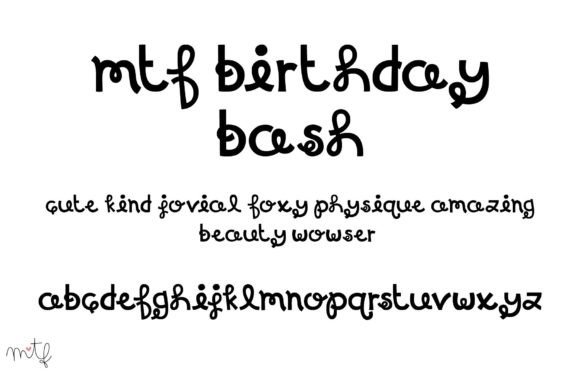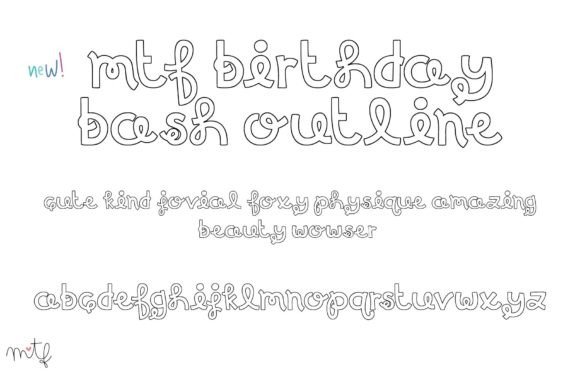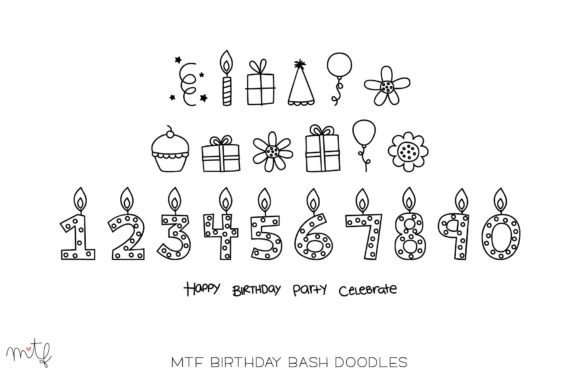
Birthday Bash Duo Font
About Birthday Bash Duo Font
**Birthday Bash** is not just a font; it’s a celebration in itself! This swirly and fun handwritten font comes paired with a fantastic set of birthday doodles, creating a brilliant duo that takes your birthday projects to the highest levels of creativity and joy.
The swirly and fun nature of **Birthday Bash** brings a lively and celebratory atmosphere to your text. It’s like confetti and streamers transformed into a font, ready to infuse your designs with a sense of fun and excitement. The characters dance along the baseline, adding a playful touch to your birthday creations.
What makes **Birthday Bash** truly special is the addition of a fantastic set of birthday doodles. These whimsical illustrations complement the font perfectly, allowing you to effortlessly enhance your designs with balloons, cakes, candles, and more. It’s a complete package that turns your birthday projects into vibrant and festive works of art.
Whether you’re designing birthday cards, invitations, or any other celebratory materials, **Birthday Bash** is the font that ensures your text is not just read but experienced. It’s the font that brings the party to your designs, making them visually captivating and joyous.
So, let **Birthday Bash** be your go-to font duo for all things birthday-related. It’s the brilliant combination that turns ordinary text into a celebration, adding a burst of creativity and fun to your birthday projects.
In summary, **Birthday Bash** is the swirly and fun handwritten font combined with a fantastic set of birthday doodles, ready to elevate your birthday projects to the highest levels of excitement and creativity. Let the celebration begin with this brilliant duo!